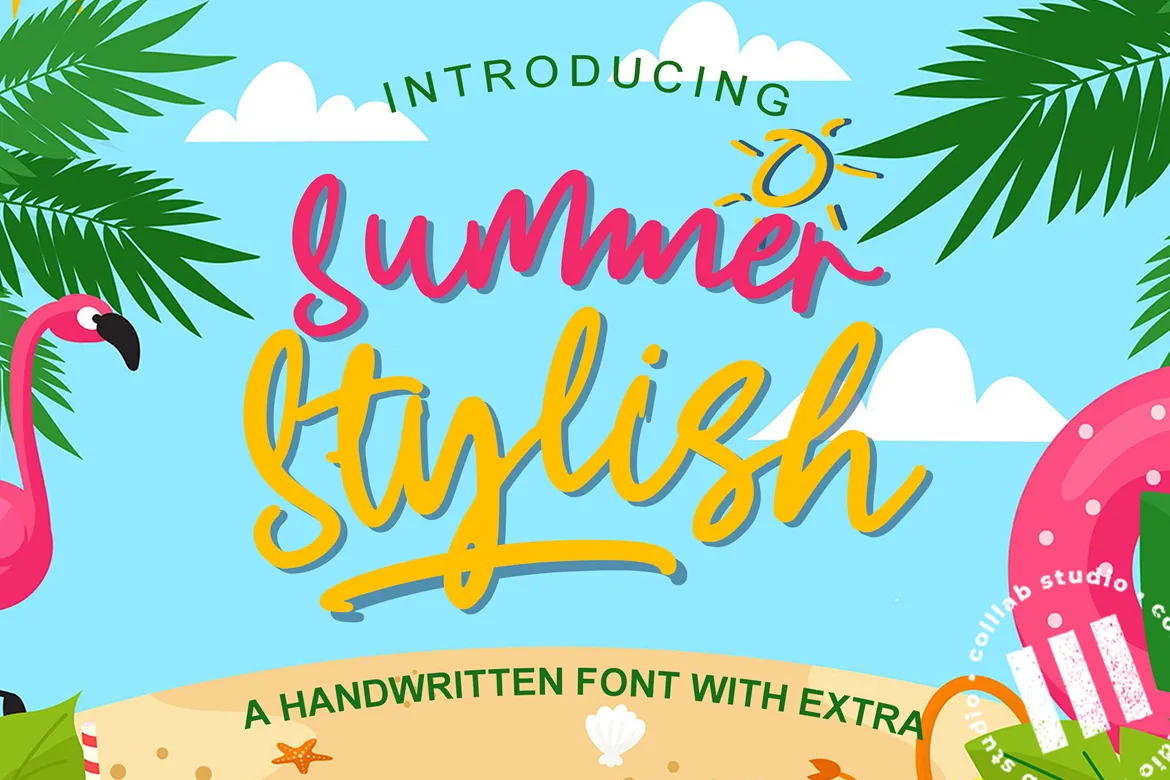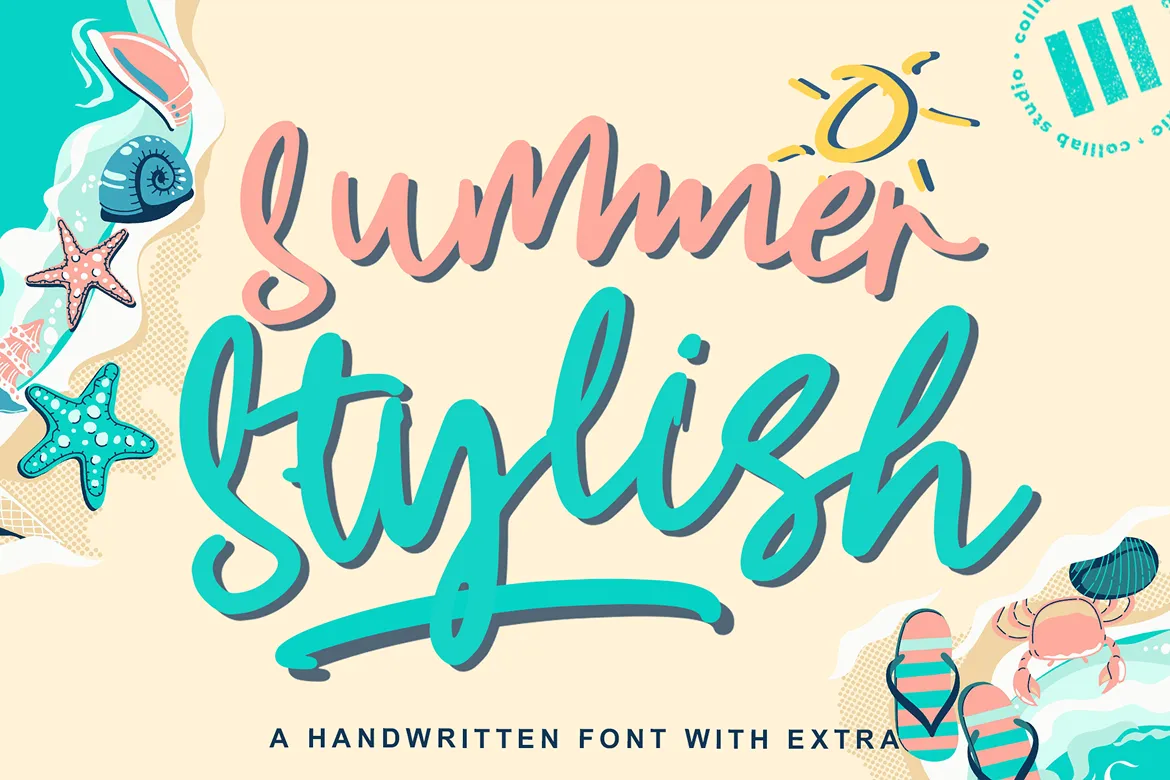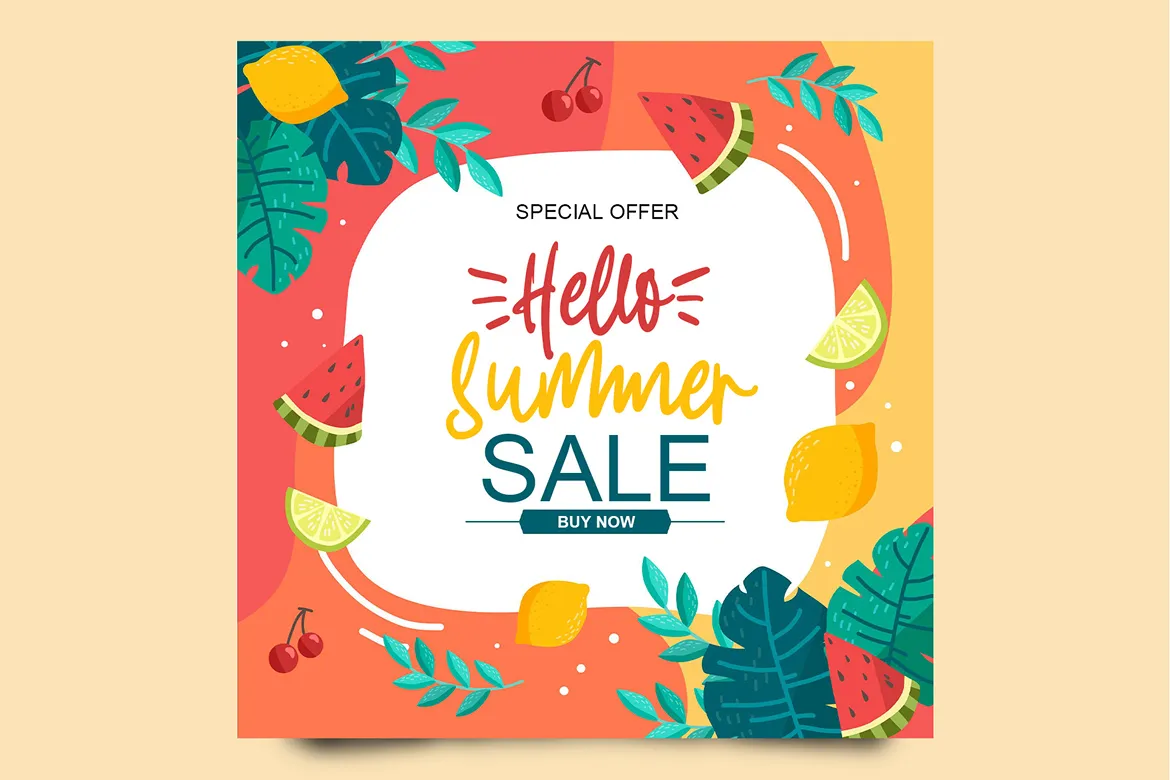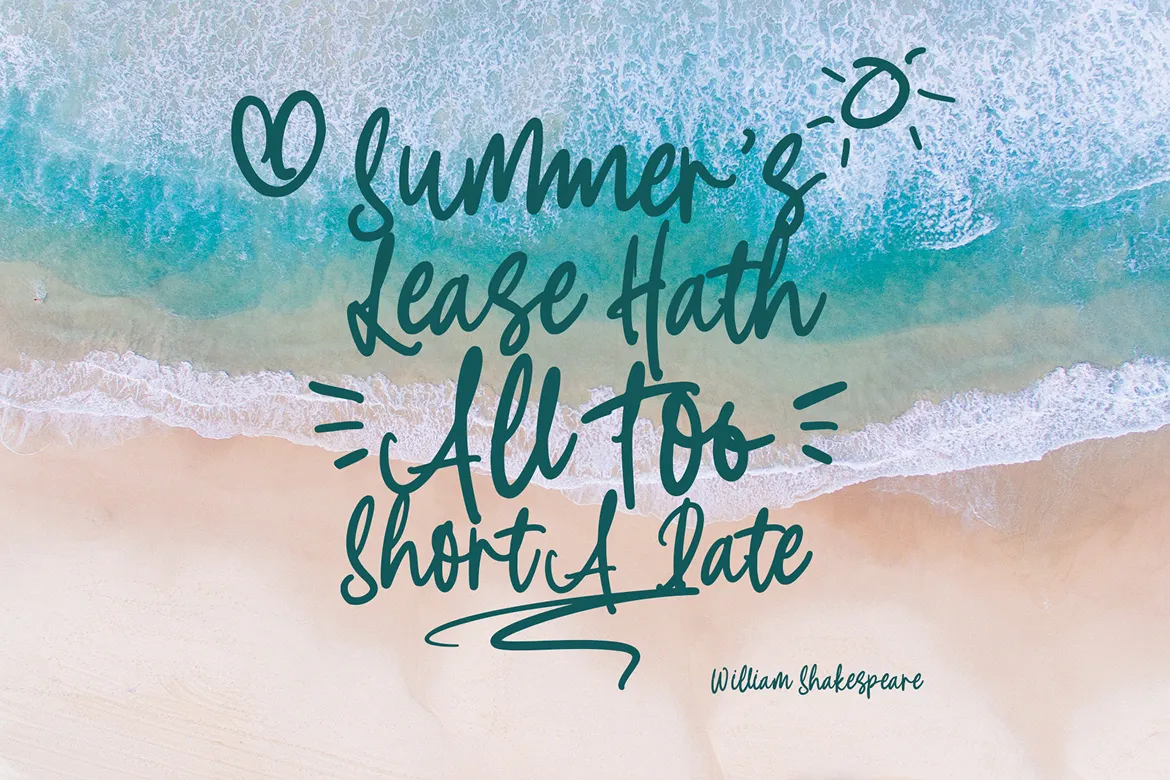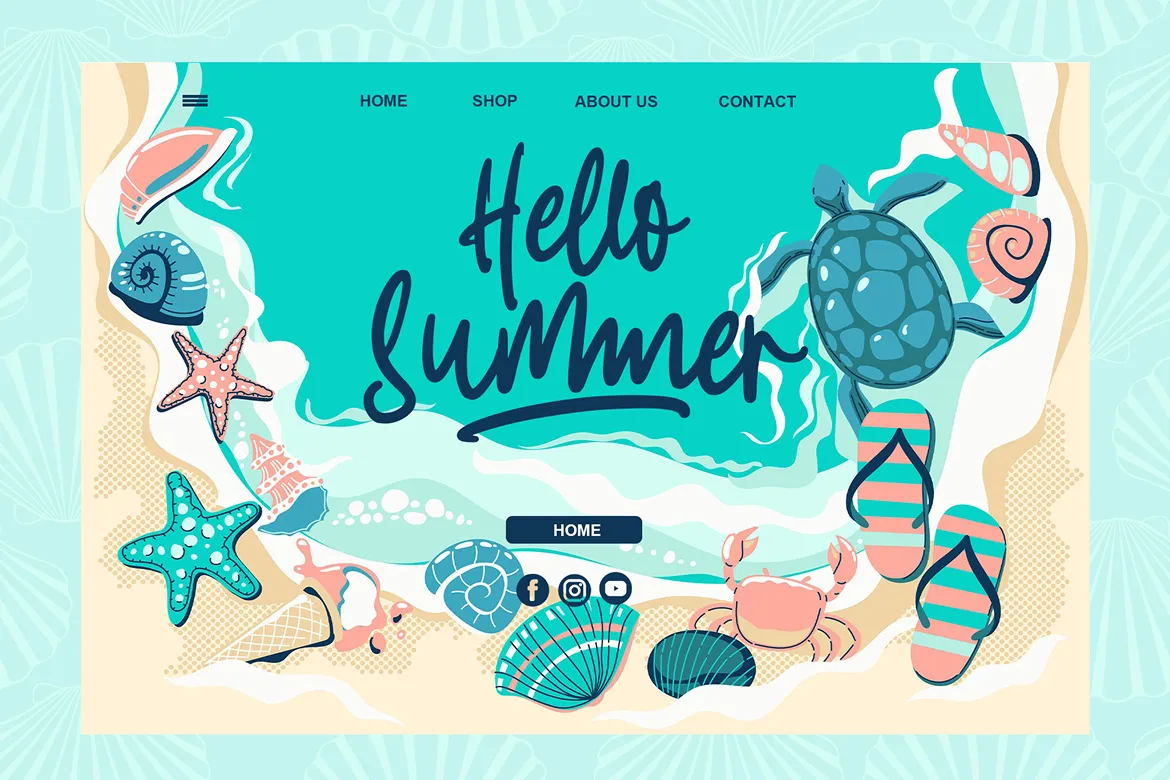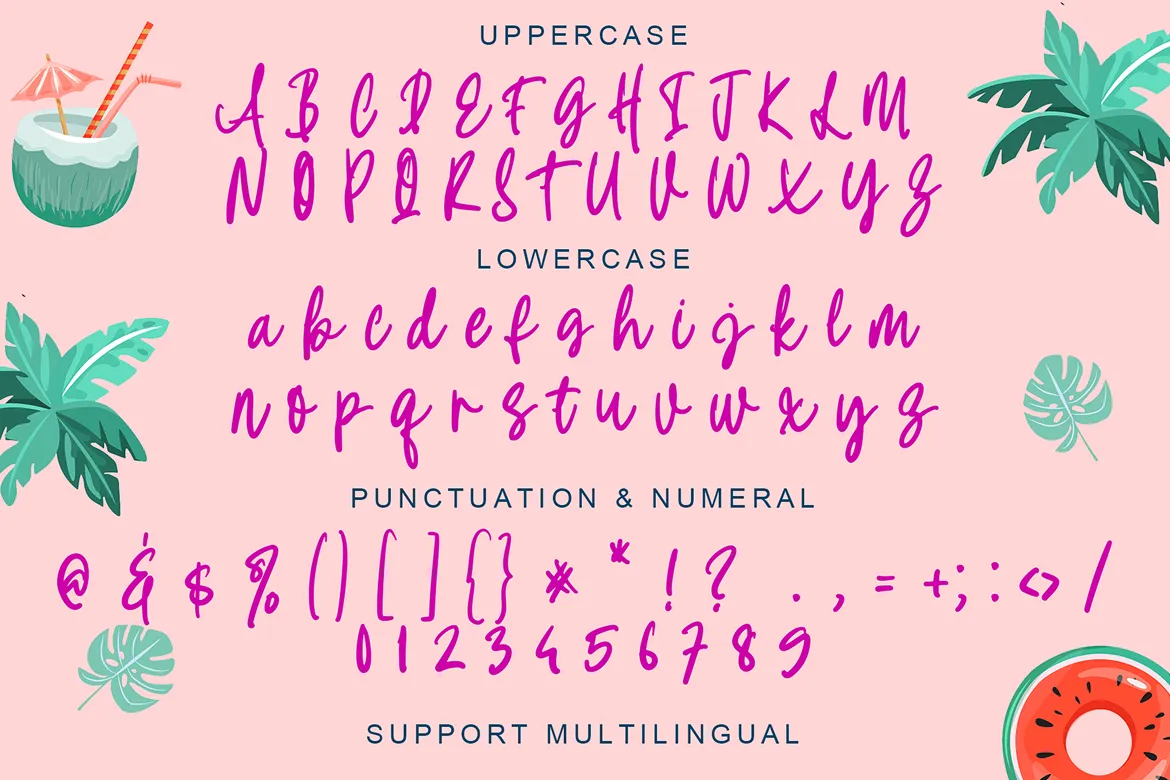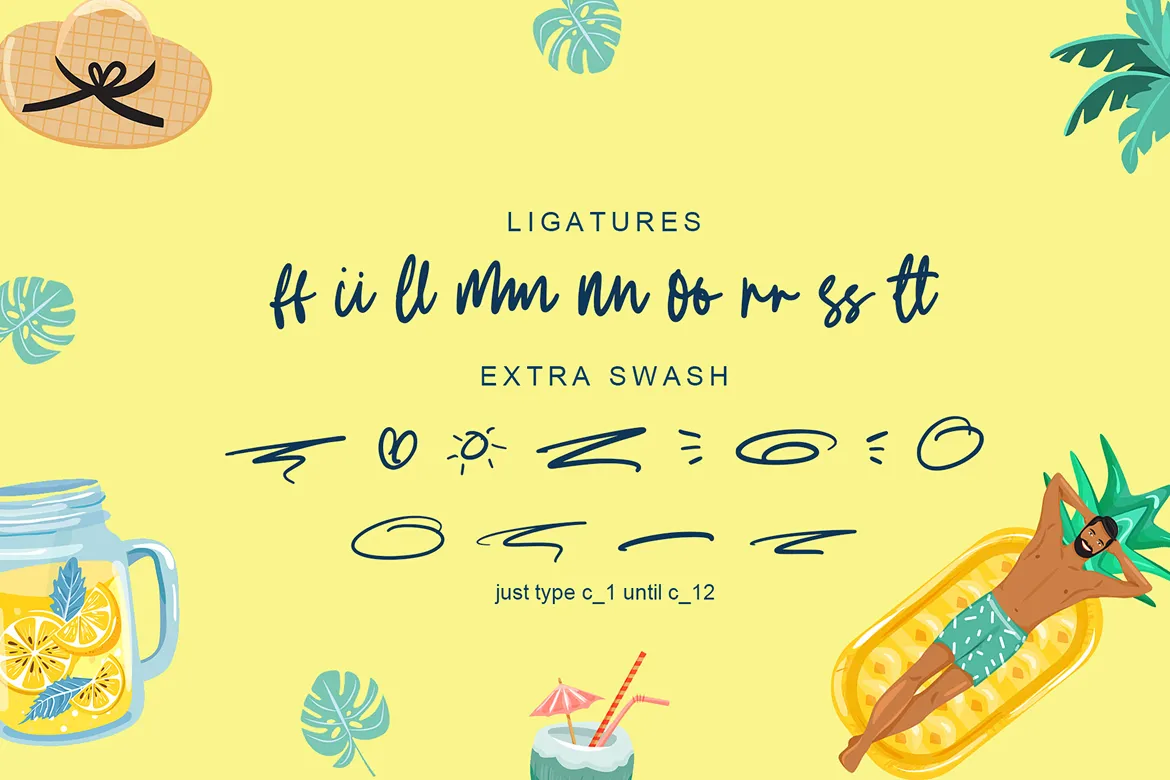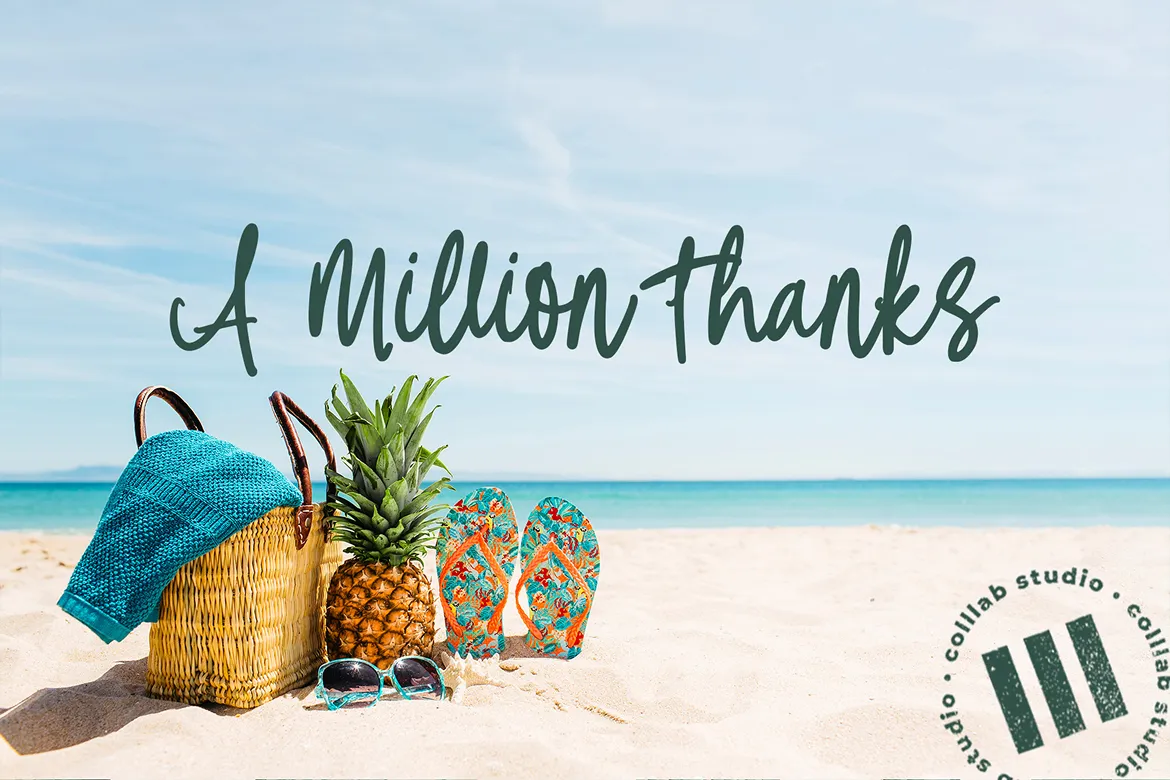
Summer Stylish is a vibrant handwritten script font with the joyful feel of hand-drawn markers. Its lively strokes, decorative characters, and casual baseline capture the essence of summer vibes—perfect for branding, quotes, product packaging, social media posts, and fashion-inspired projects. Whether you’re designing logos, blogs, or magazine layouts, Summer Stylish brings a fresh handwritten touch.
This font was inspired by the carefree charm of sunny beach days, colorful markets, and handwritten travel journals. Each letter feels spontaneous yet polished, making it ideal for projects that want to radiate positivity and warmth.
Full uppercase & lowercase characters
Numbers & punctuation
Ligatures for smooth connections
Alternate glyphs & swashes for variety
Multilingual support